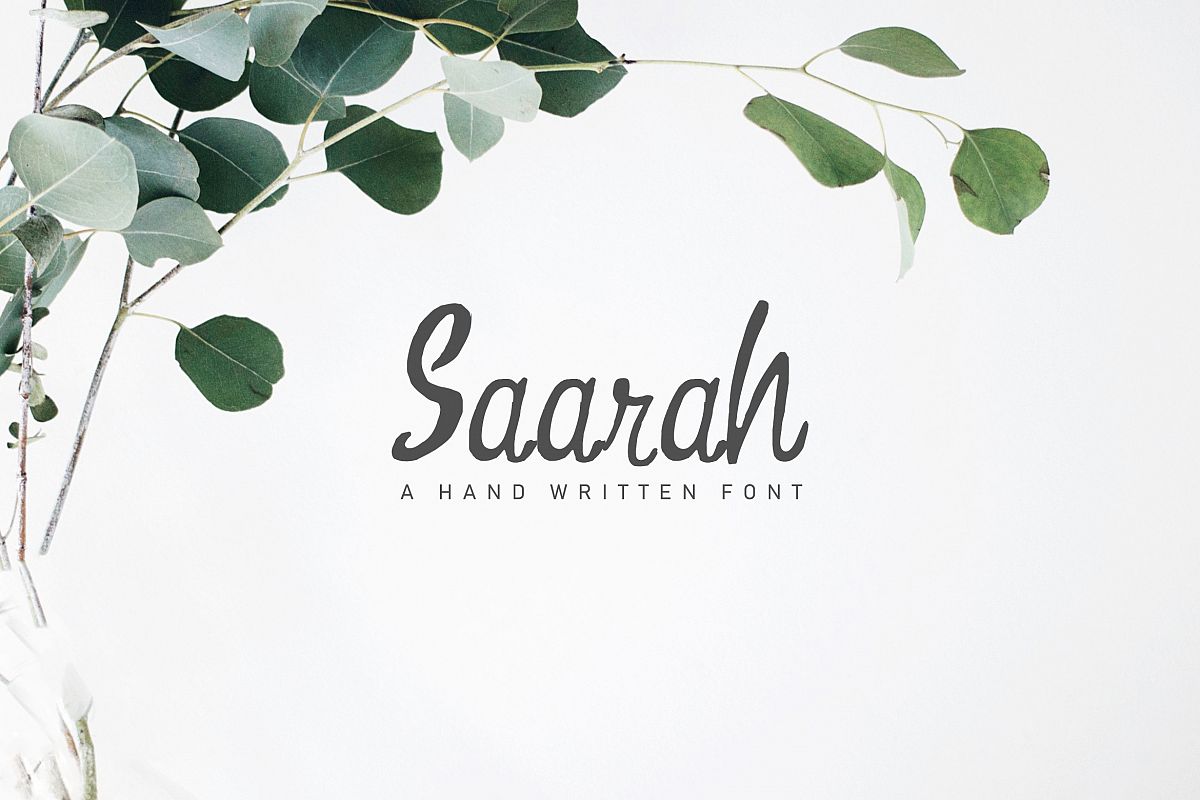
Saarah Fresh Handmade Font
Saarah is a fresh handmade script font written, with gentle curves to produce a font. It is very suitable for greeting cards, branding materials, wedding postcard, business cards, quotes, posters, small business, book covers, stationery, marketing, magazines and more.
Saarah Font Features:
• Uppercase Multilingual Letters
• Lowercase Multilingual Letters
• Non English Characters ( Latin Supplement )